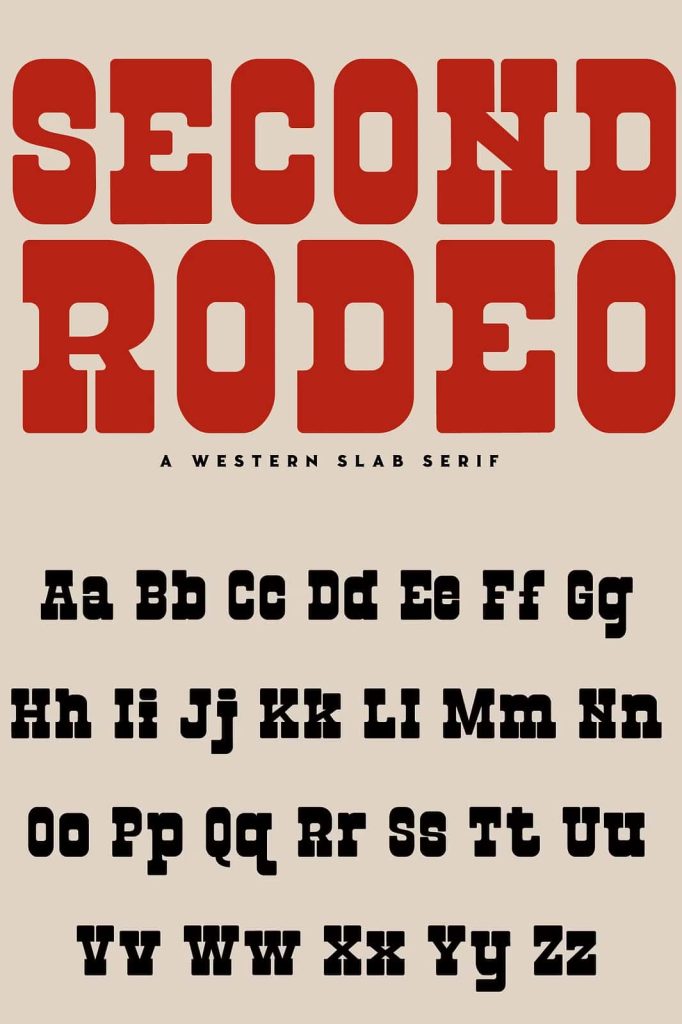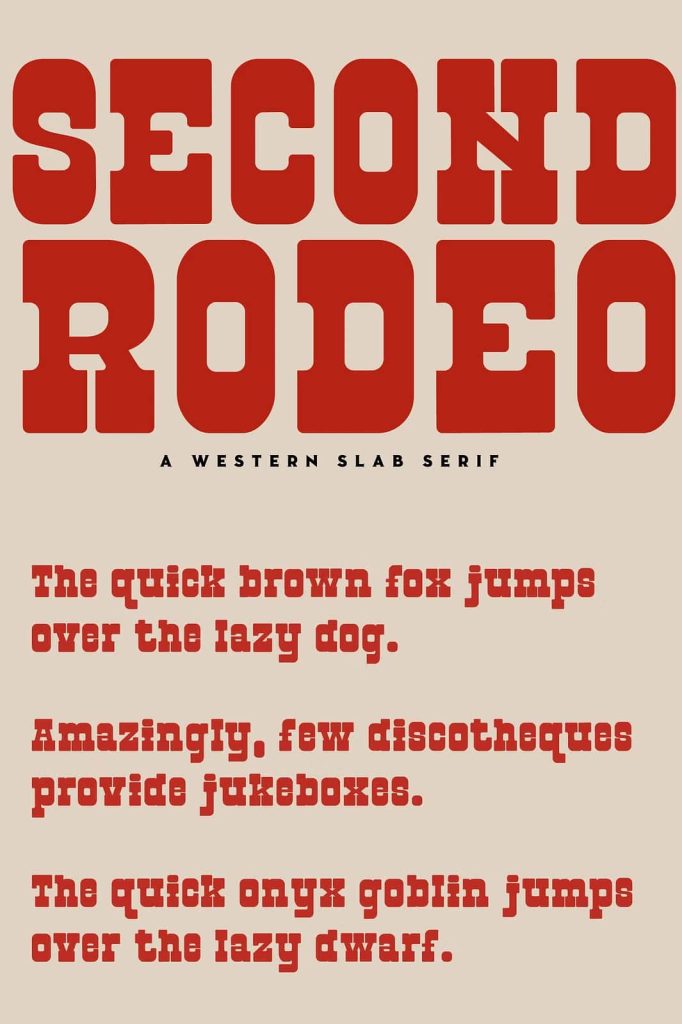
Second Rodeo is a vintage western slab font with sharp characters on each side. Use this display slab font to add that special retro vintage touch to any design.